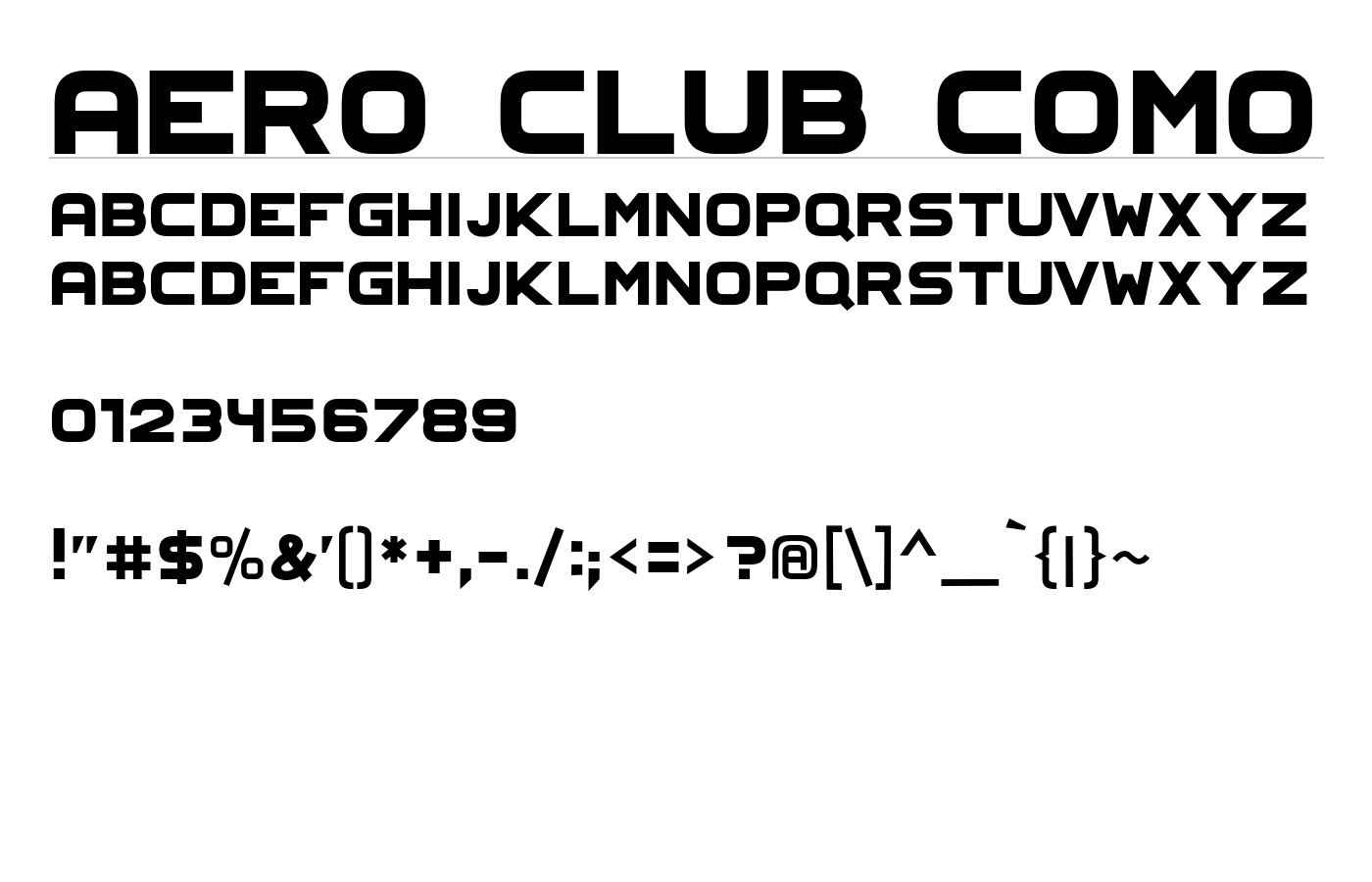
Aero Club Como is a bold, geometric sans serif font with a modern, slightly condensed structure that conveys strength and clarity. Its clean, uniform strokes and squared shapes create a futuristic and technical feel, making it ideal for branding, headlines, and display uses where a sleek, contemporary presence is desired. This font works especially well in technology, sports, or aviation-themed projects, offering a confident yet approachable style.
Aero Club Como Font